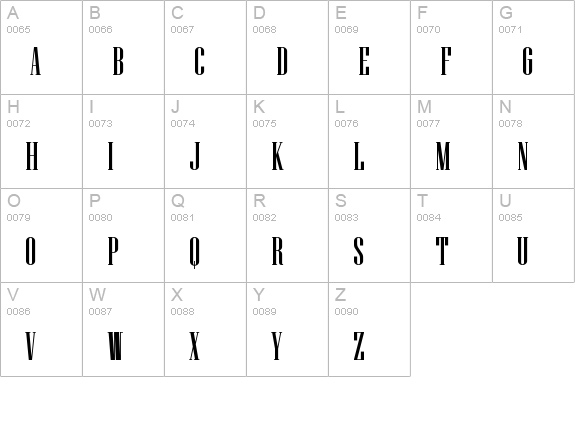
PFMission Solid font is a modern and sophisticated typeface that exudes elegance and professionalism. With its clean lines and bold strokes, this font is perfect for creating eye-catching headlines, branding materials, and signage. The solid version of PFMission adds a strong presence and impact to any design project. What sets PFMission Solid font apart is its versatility - it can be used in a variety of contexts, from print materials to digital platforms. Whether you're designing a sleek corporate brochure or a contemporary website, PFMission Solid will help you achieve a polished and refined look. Best of all, PFMission Solid font is completely free to download at FontsMarket.com. This means you can access this high-quality typeface without any cost, making it a valuable addition to your font library. Don't miss out on the opportunity to enhance your designs with the timeless elegance of PFMission Solid font.